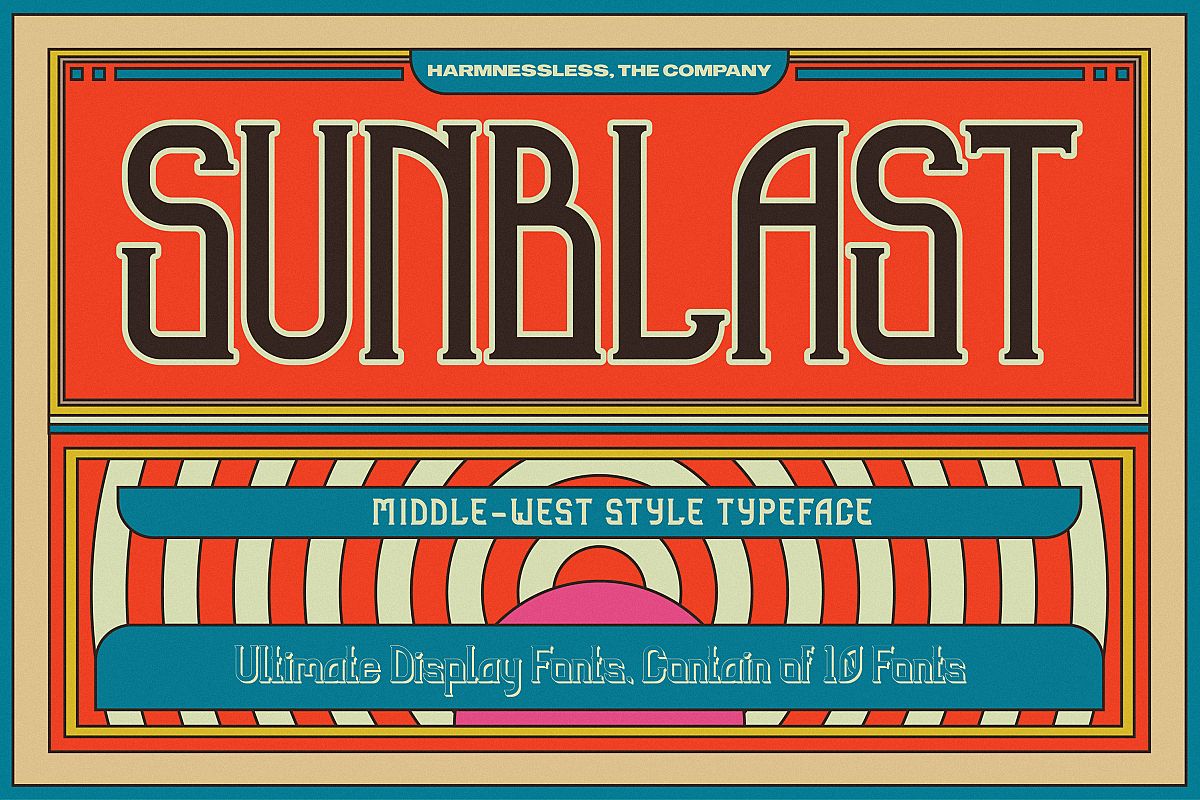
Sunblast Display Typeface
Sunblast Tall Outline
Sunblast Tall Rough
Sunblast Tall Regular
Sunblast Tall Slanted
Sunblast Rough
Sunblast Tall Distressed
Sunblast Bold
Sunblast Slanted
Sunblast Regular
Sunblast Extruded
Sunblast - Mid-west style typeface contain of 10 fonts
Sunblast is Display Font Family with 10 styles inspired by neo-psychedelic-stoner scene. Designed in a modern Egyptian style.
More than 1000 glyphs was crafted inside Sunblast Display Font.Sunblast features:
• Uppercase & lowercase
• Punctuation & symbols